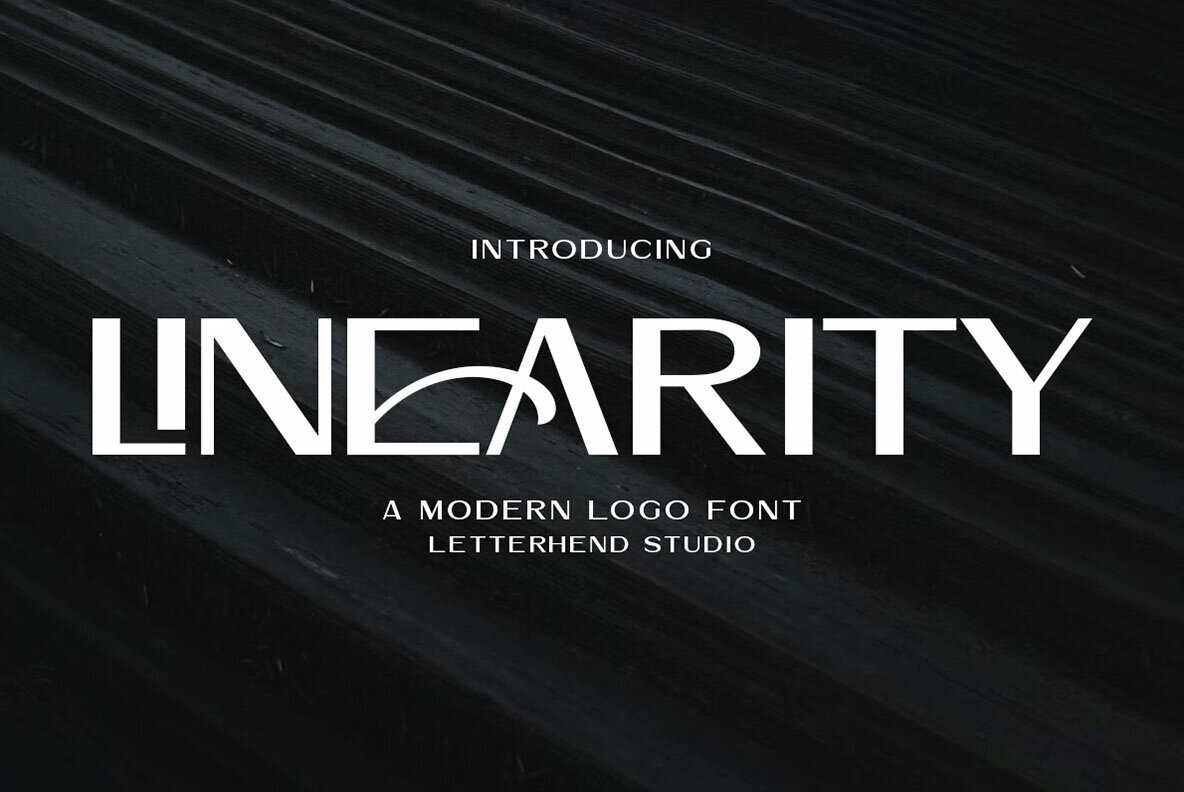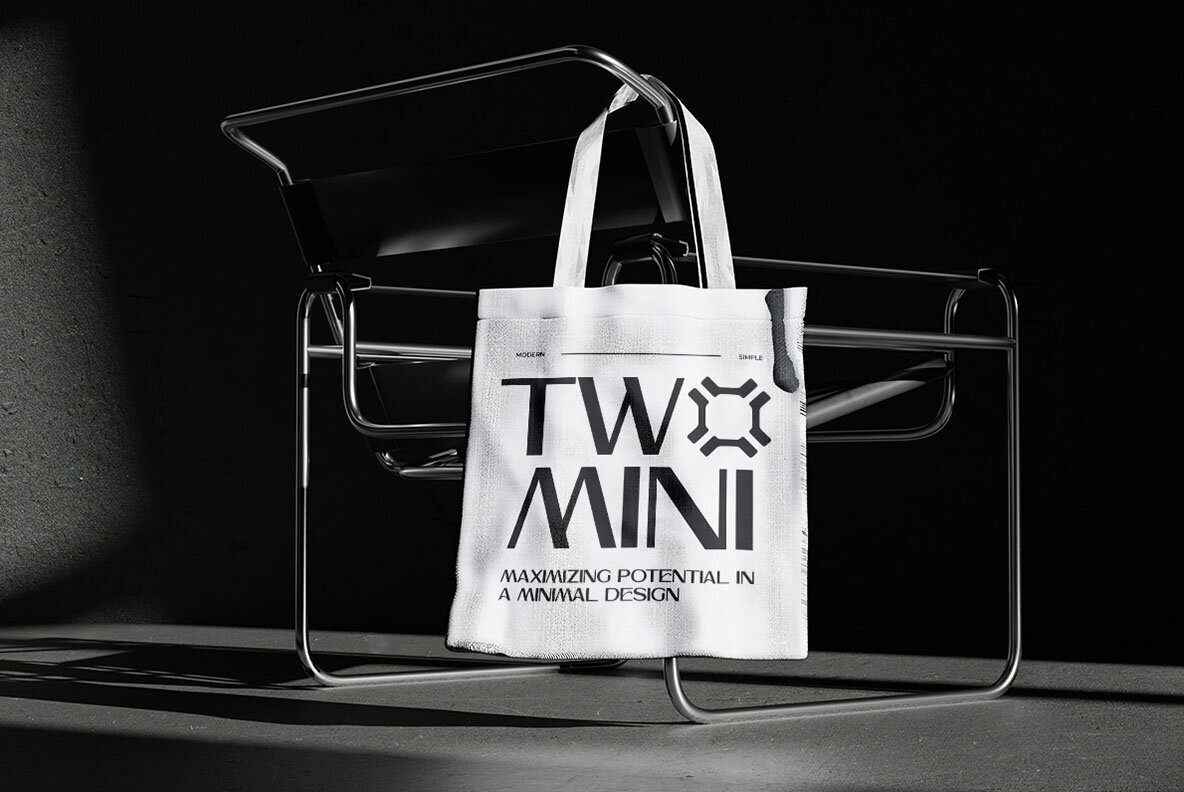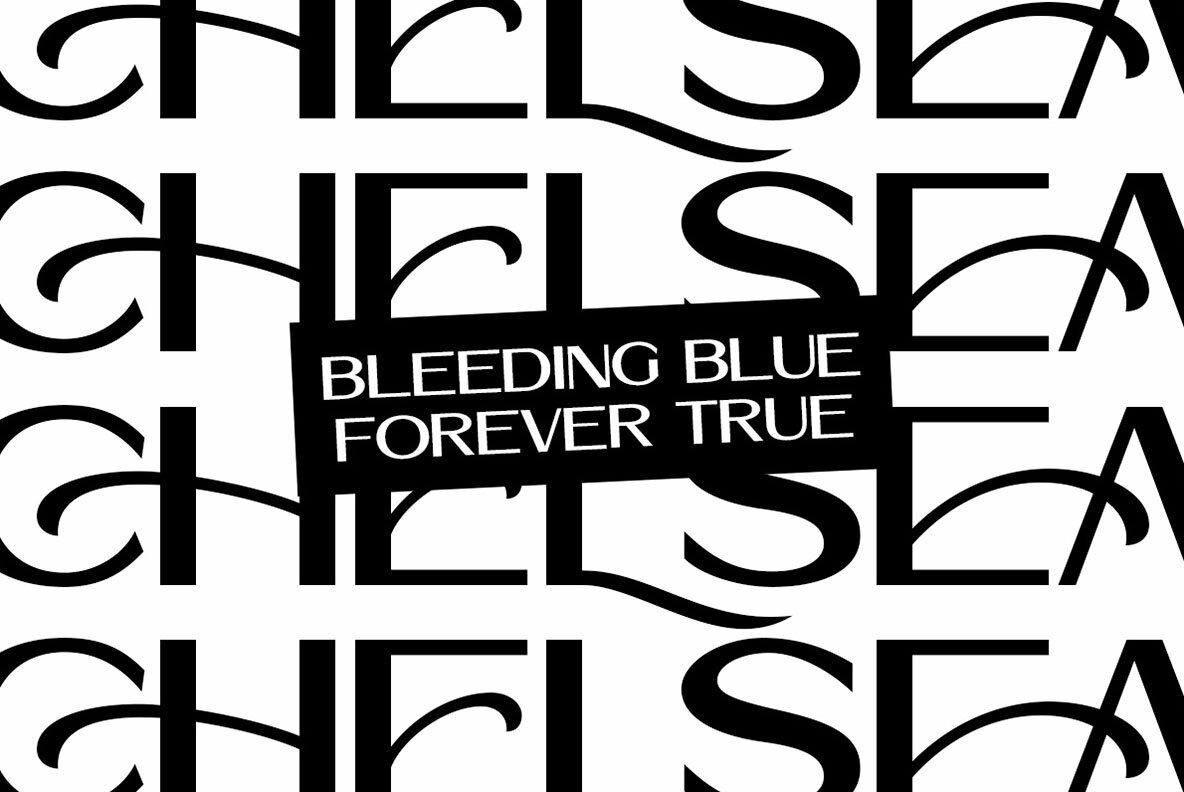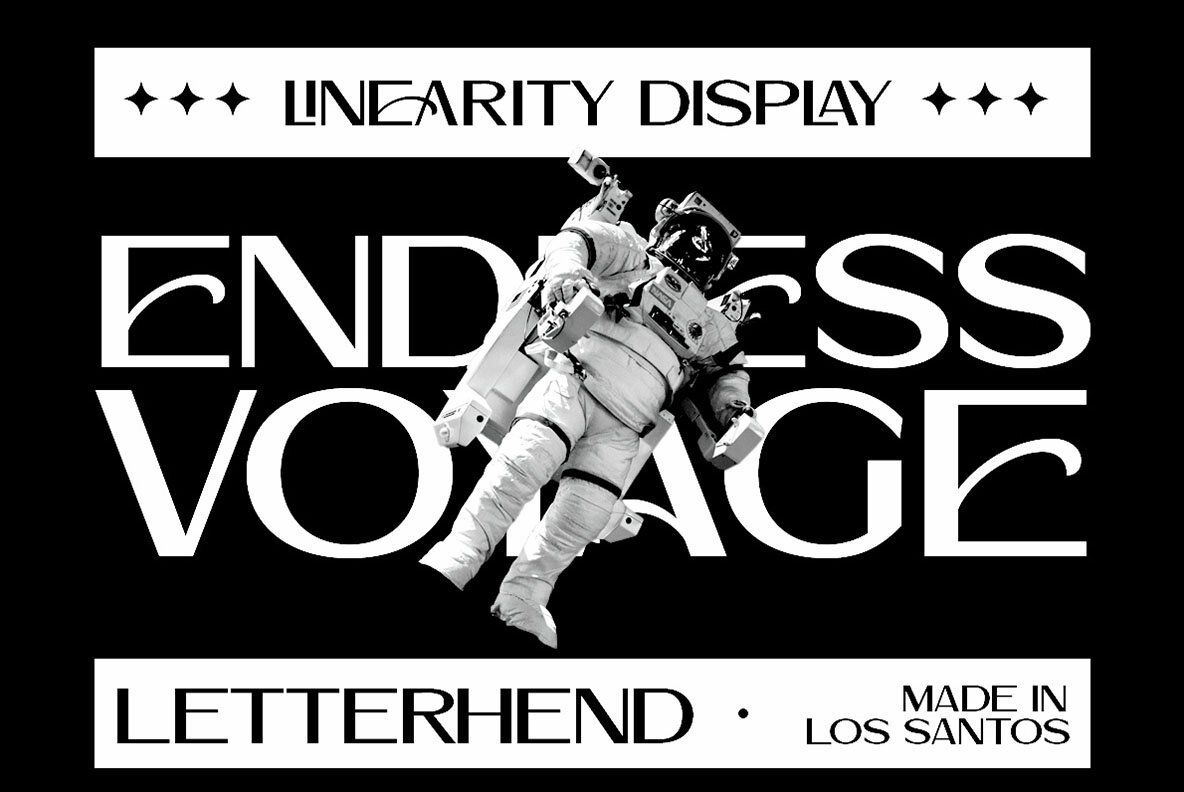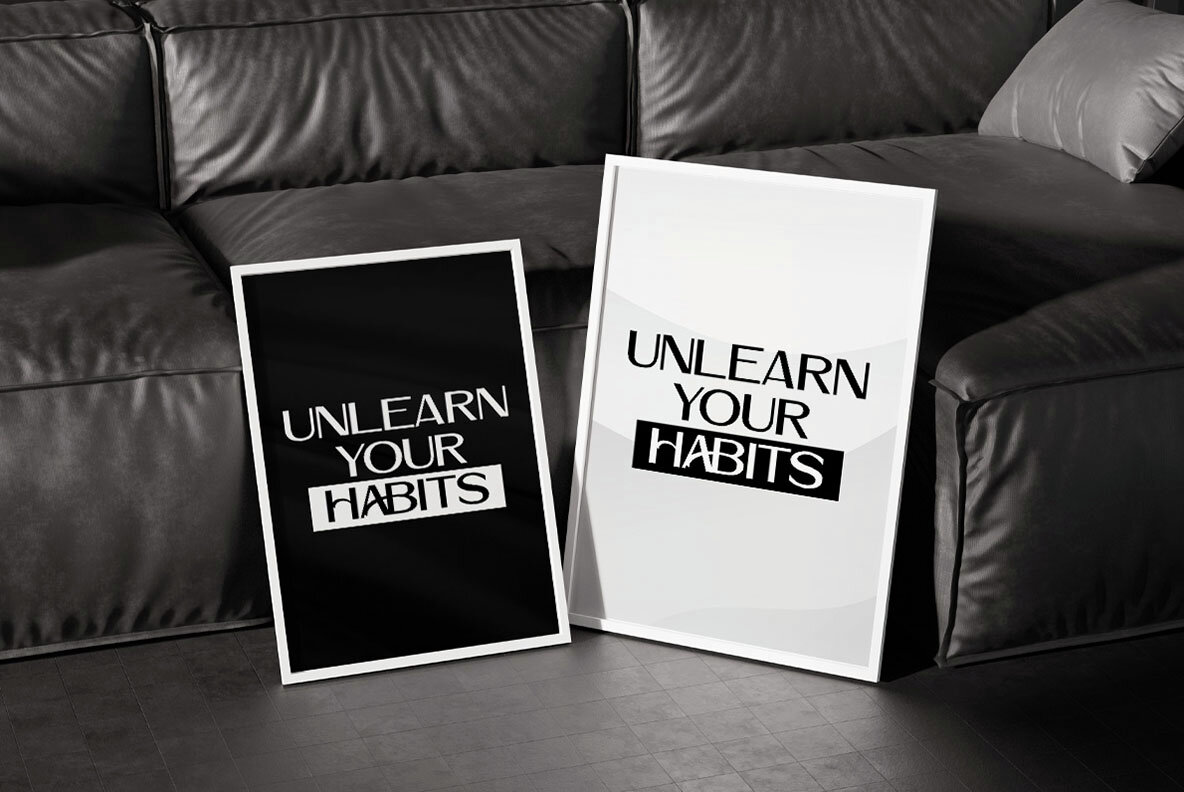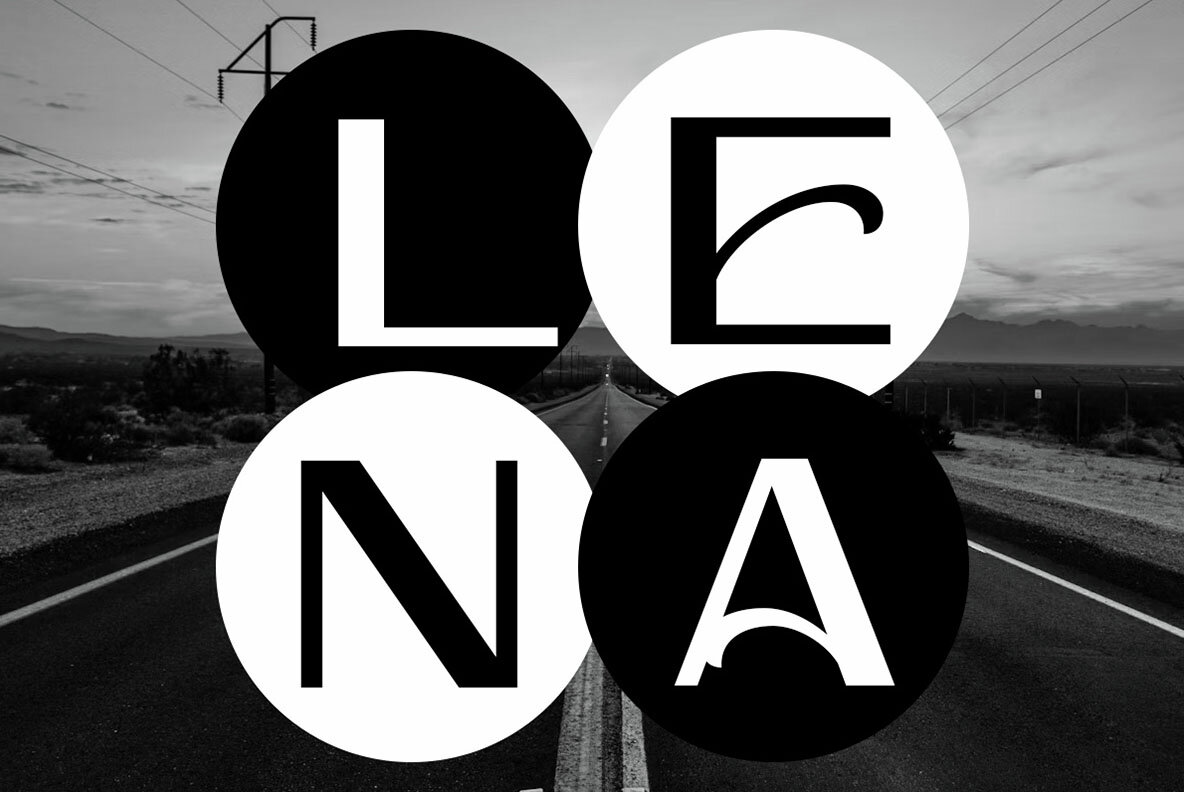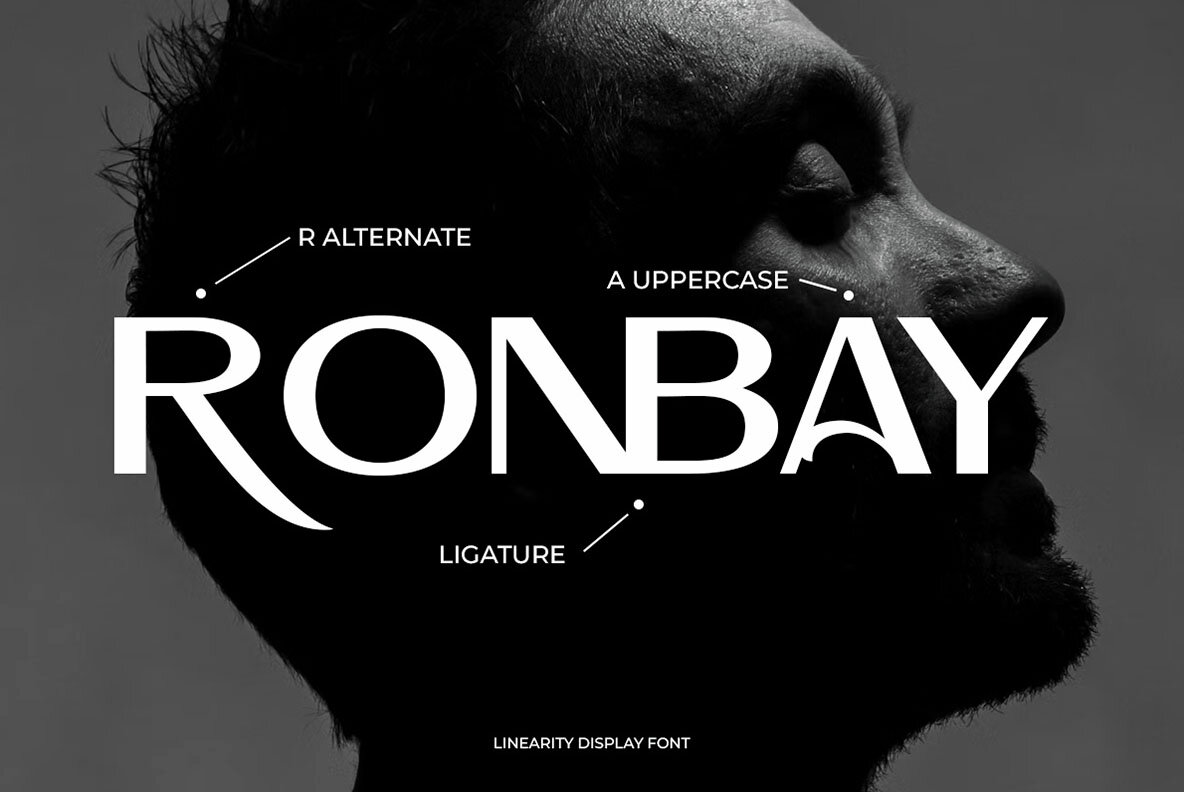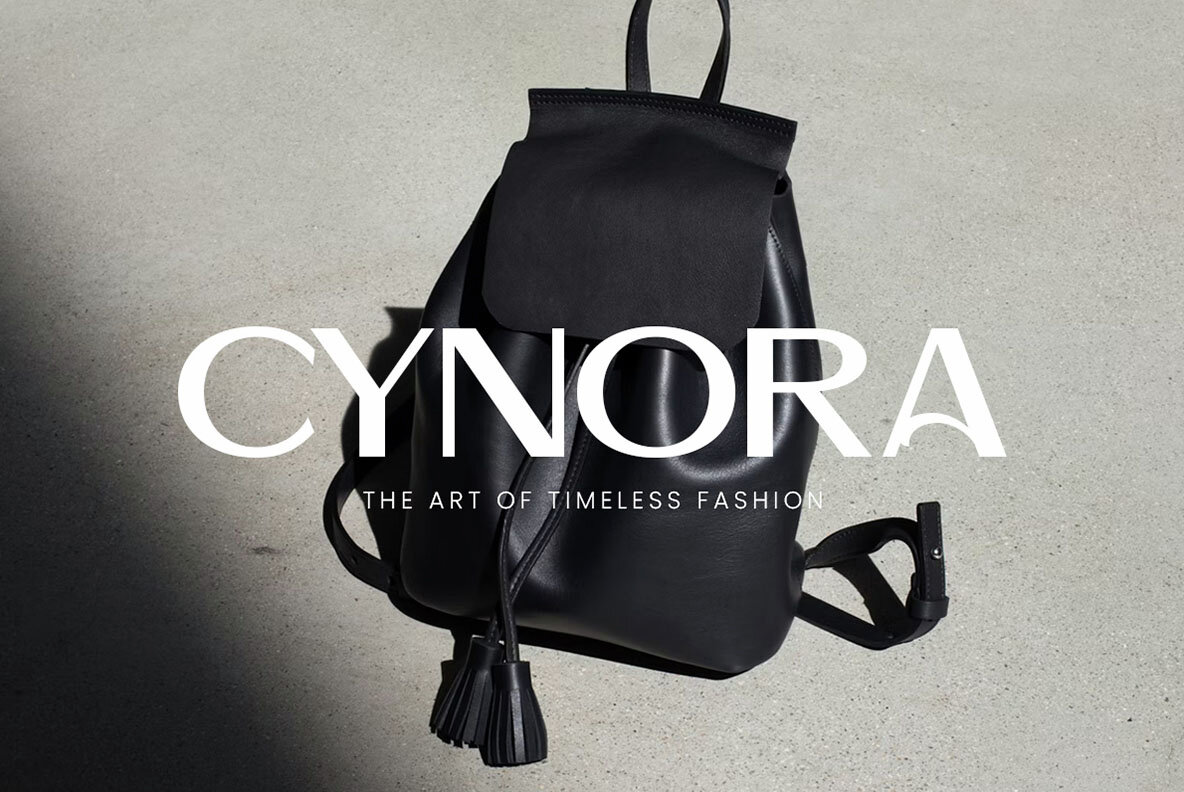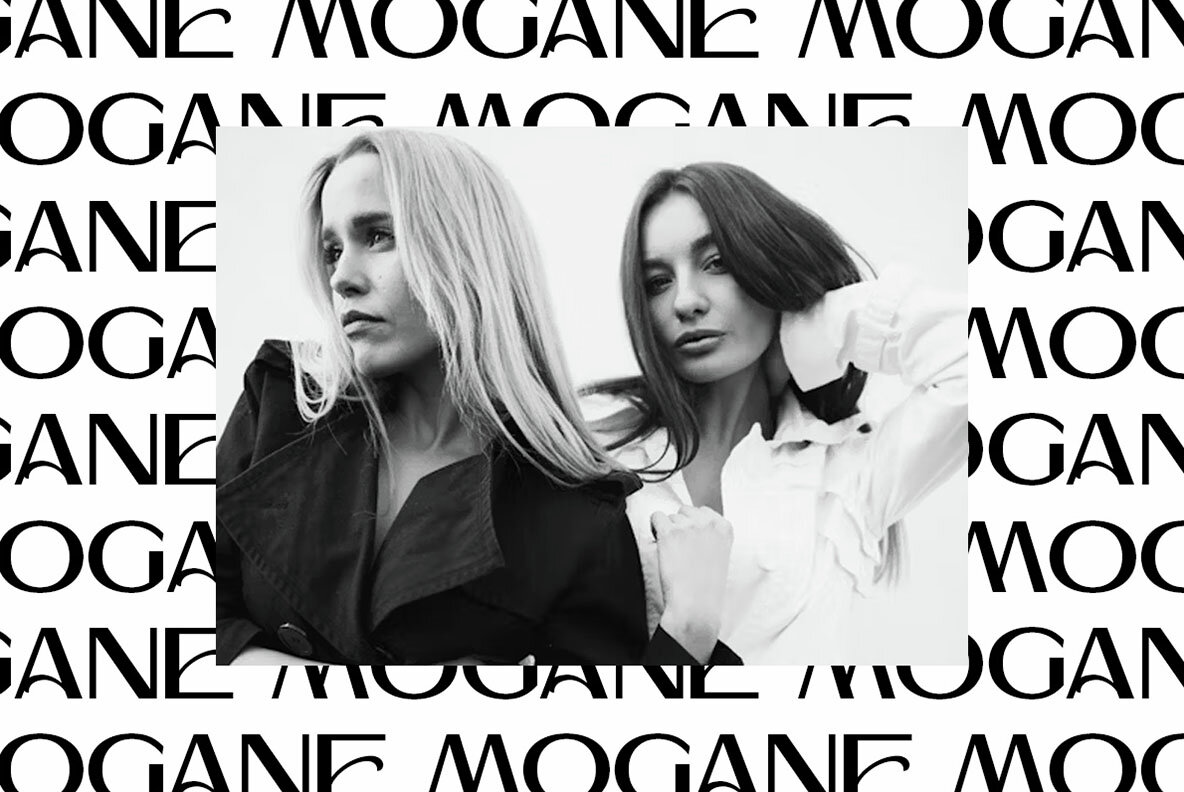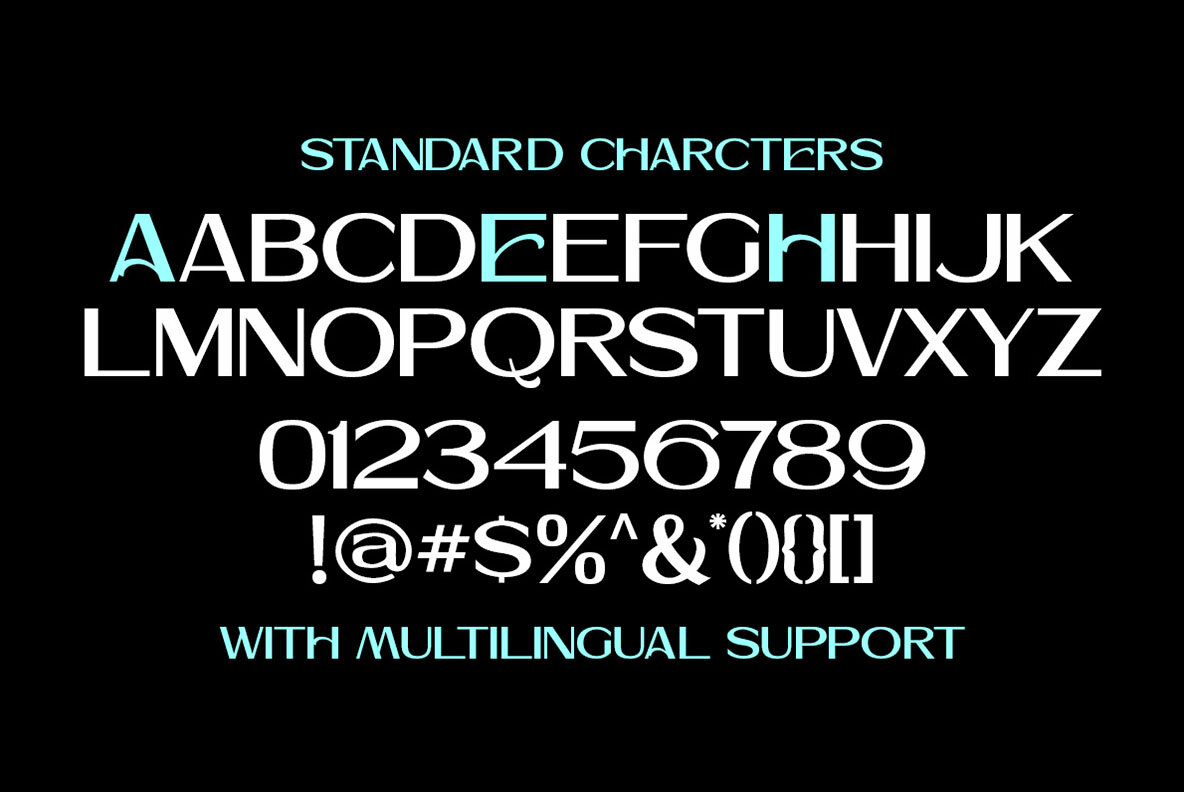
Linearity Font
Linearity
Linearity is a modern sans-serif font optimized for logo design and branding. Its sharp edges and geometric forms deliver a sleek, professional aesthetic that is perfect for minimalist projects. The clean lines and subtle creative nuances make it an excellent choice for impactful logos, futuristic designs, technology-driven projects, and elegant headlines.